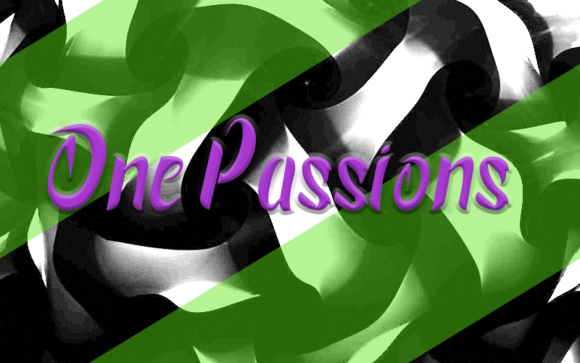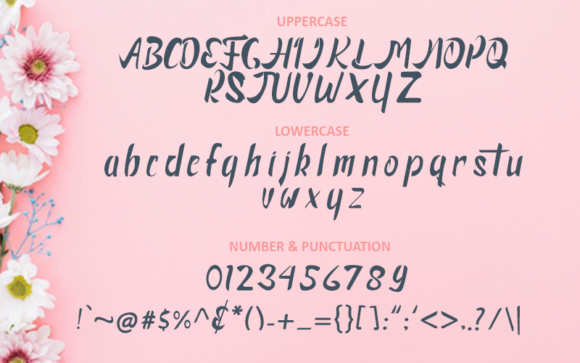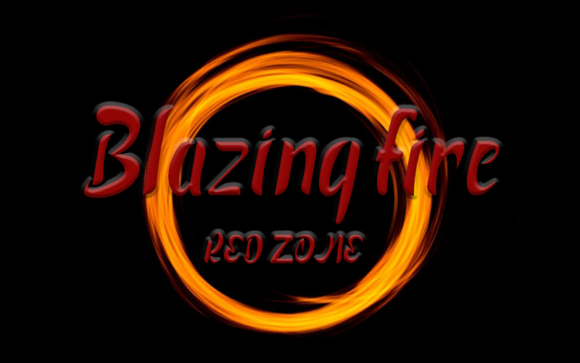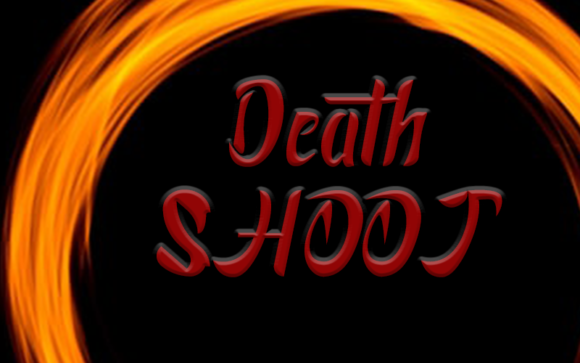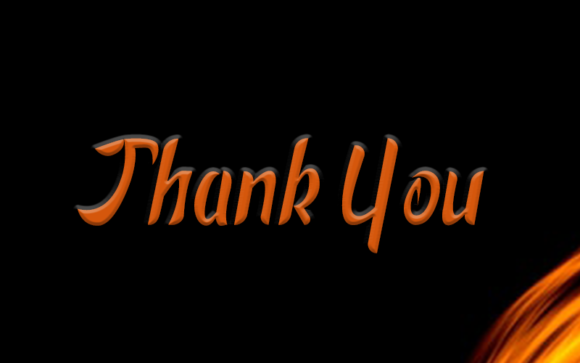
Financialy Font
About Financialy Font
Financial is a simple and casual handwritten font with an undeniably clean feel. This enchanting font will turn any creative idea into a true standout.